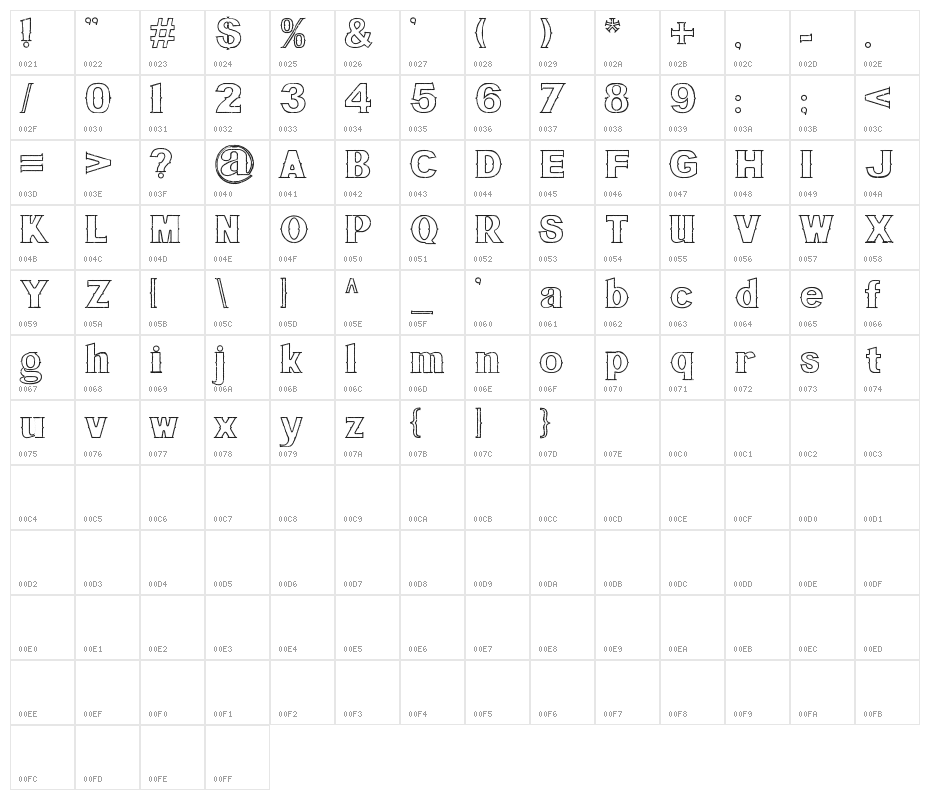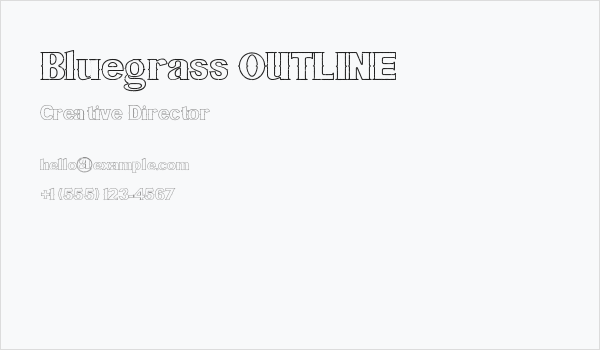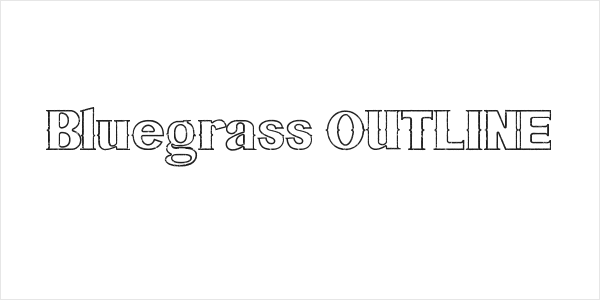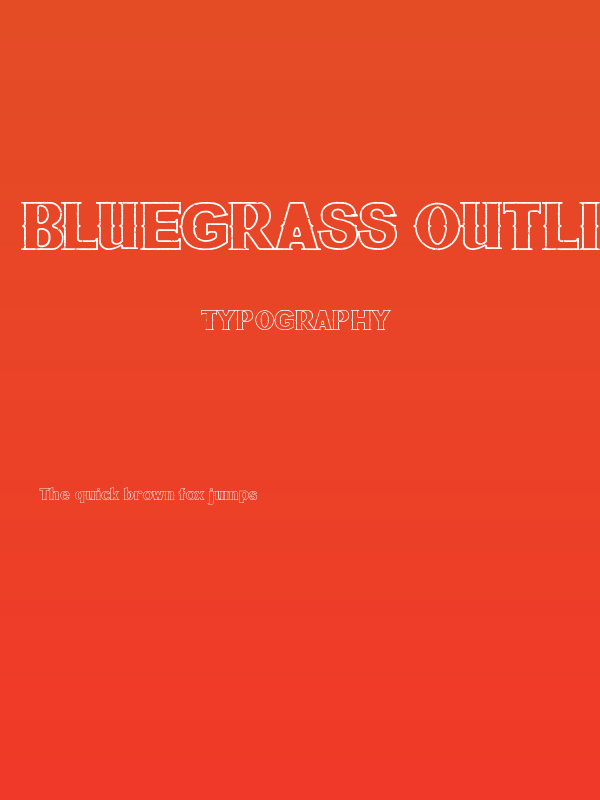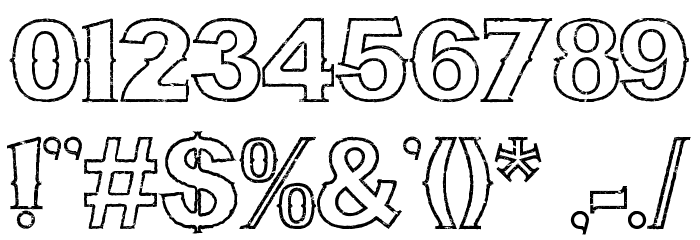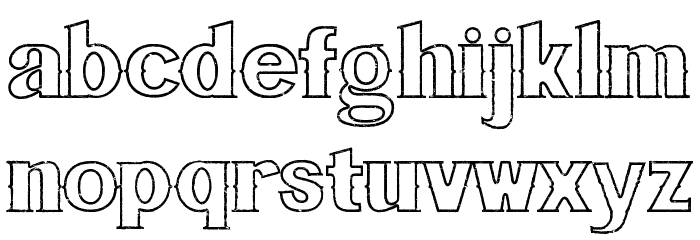
Bluegrass OUTLINE Font
Bluegrass OUTLINE Description
This font features a bold, outlined style with a playful and decorative appearance. The uppercase and lowercase letters are designed with a consistent outline that gives them a three-dimensional look. The characters are well-defined and maintain a uniform thickness throughout, emphasizing their boldness. The numerals and special characters follow the same outlined style, ensuring a cohesive look across all glyphs. This font's unique design makes it stand out, offering a creative and artistic flair suitable for various design projects.
| Proposed Projects | Ideal for posters, logos, headlines, and any project requiring a standout, artistic font. |